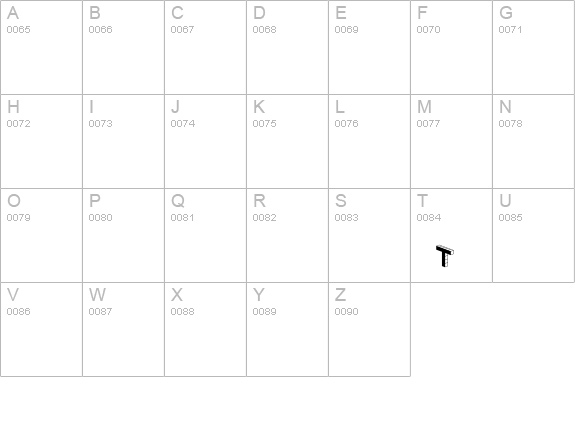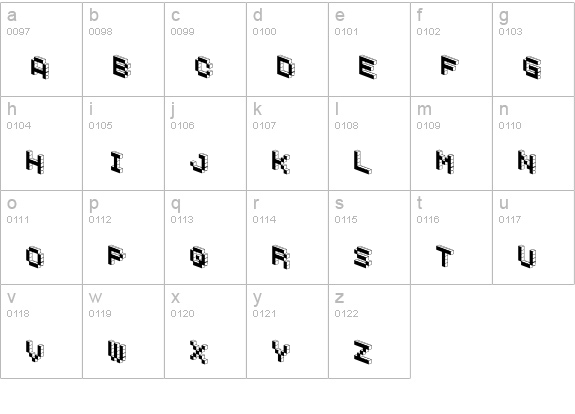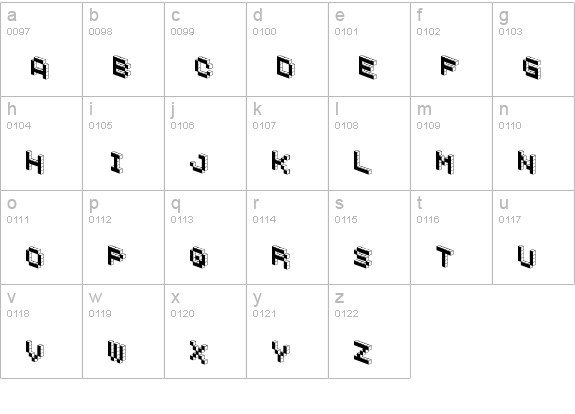
DemonCubicBlockFont Black Font Details
DemonCubicBlockFont Black is a maximum-weight, dramatic variant in the DemonCubicBlockFont typeface family \xE2\x80\x94 well suited to maximum-impact headlines, posters, and packaging.
Introducing DemonCubicBlockFont Black, a captivating and bold typeface that will elevate your designs to a whole new level. With its striking geometric shapes and strong presence, this font is perfect for making a statement and grabbing attention. DemonCubicBlockFont Black combines the power of block lettering with a touch of dark elegance, creating a unique and edgy style that is sure to leave a lasting impression. Its precise and well-defined lines give each character a strong and assertive appearance, making it ideal for logos, headlines, and eye-catching titles. This font's versatility is truly remarkable, as it effortlessly adapts to various design projects, from futuristic themes to urban aesthetics. Its distinct cubic forms add depth and dimension, creating a visually stunning effect that will captivate your audience. But what makes DemonCubicBlockFont Black even more appealing is that it is freely available to download at FontsMarket.com. Yes, you read that right! You can enjoy the artistic and powerful qualities of this font without any cost, making it the perfect choice for both personal and commercial projects. So why wait? Unleash your creativity and take your designs to new heights with DemonCubicBlockFont Black. Download it for free at FontsMarket.com and let its bold and captivating style make a bold statement in your next project.